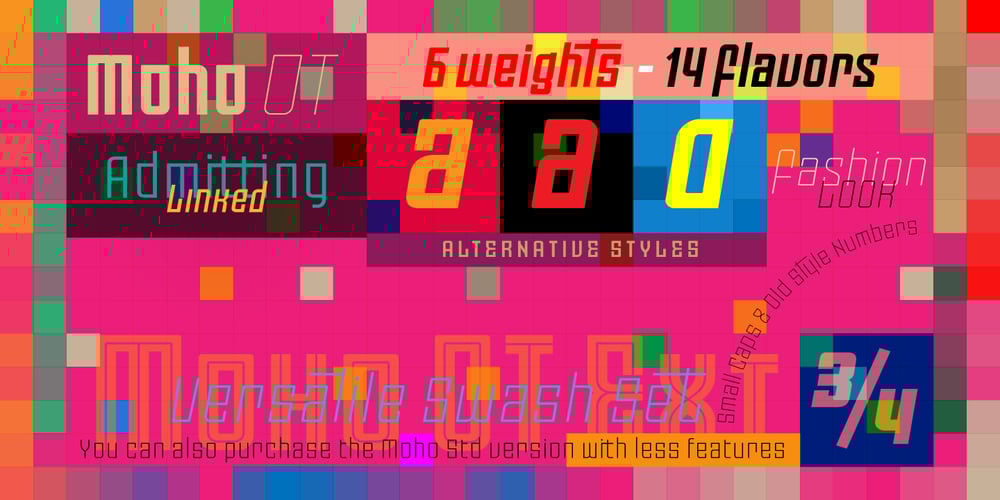
Moho Font Family was designed by John Moore and published by John Moore Type Foundry. Moho contains 24 styles and family package options. Moho is a broad family of types inspired by the burgeoning modernism of the early twentieth century. Moho introduces an unconventional style in the form of his glyphs which aims to impregnate the text compounds thus a distinctive aesthetic sobriety and elegance while creating a flow of practical reading. The Moho family consists of a wide range of various weights. Thought for innovative text composition, Moho covers all shades of Medium, Regular, Light, ExtraLight to delicate Thin. Moho has a square shape letter style, provided with a competent OpenType programming for Moho OT family and basic functions for Moho Std family. Among the family characteristics OT has features such as small caps for letters and numbers, stylistics alternates, swash letters where “t” is extend over others, giving the typeface that particular style ideal for headlines, ligatures for pairs and triplets of letters, fractions and ordinals. In addition, each comes with its weight set italics. Moho has a character set to compose texts in European languages of east and west with over 600 glyphs. Moho is a letter in resonance for general topics like sports, art. technology trends, fashion, tourism and transport. There exist two groups of Moho Family OT = Full OpenType Features and full set of glyphs Std= Basic OpenType Features and less glyphs